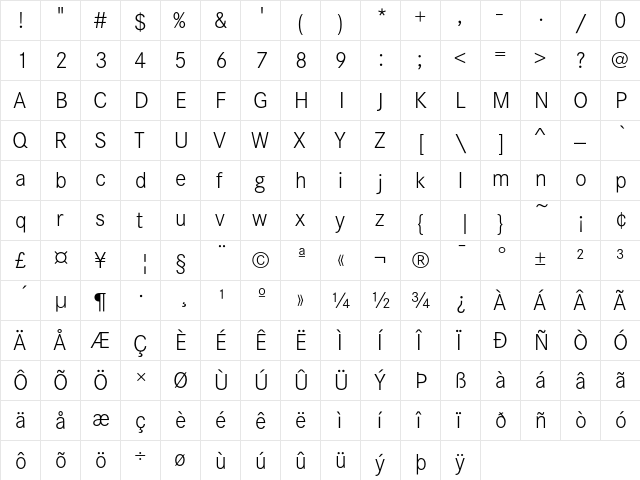
Corporate S Light
Design Context for Corporate S Typeface
Corporate S offers clean, dependable letterforms without strong stylistic allegiance, making it a practical choice for designers who need flexibility. The delicate stroke weight brings airiness and refinement to layouts.
Pro Tip: Pair Corporate S with a font of contrasting weight or personality to build a more expressive typographic hierarchy.